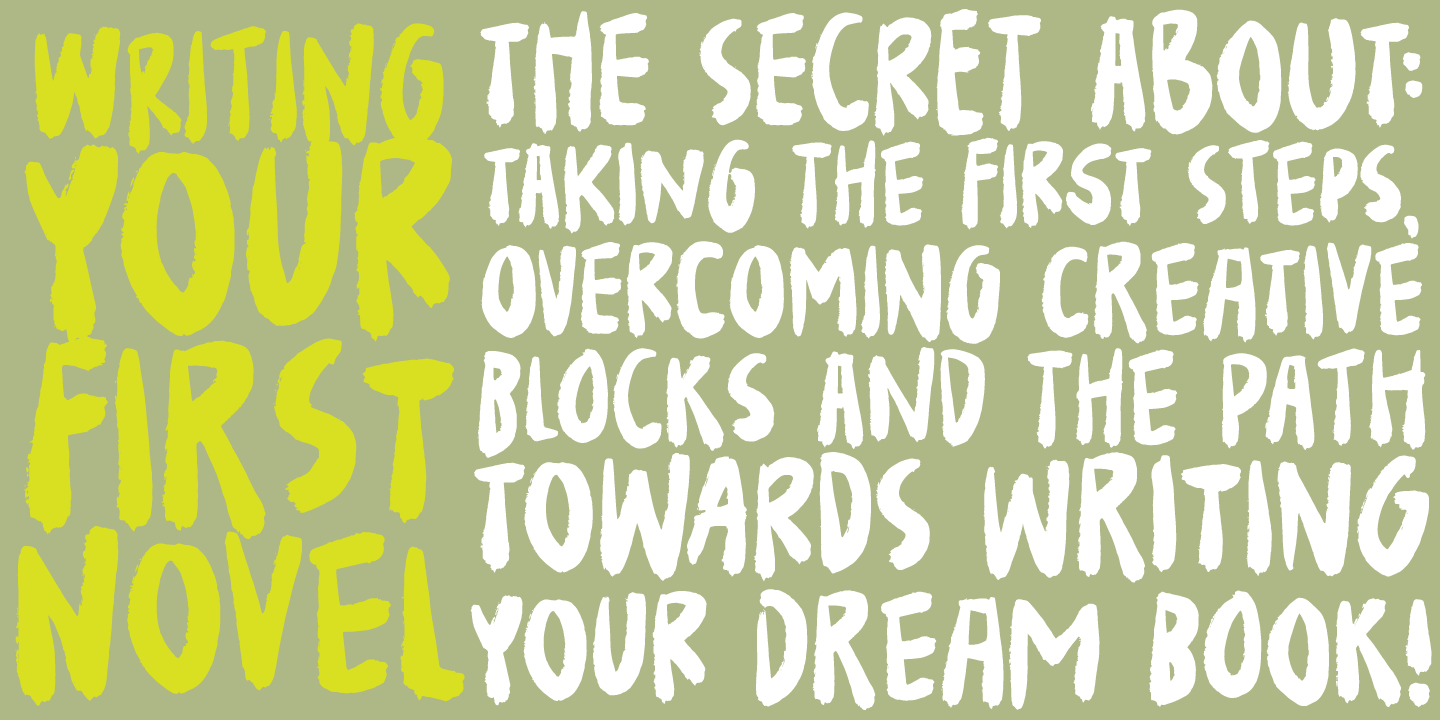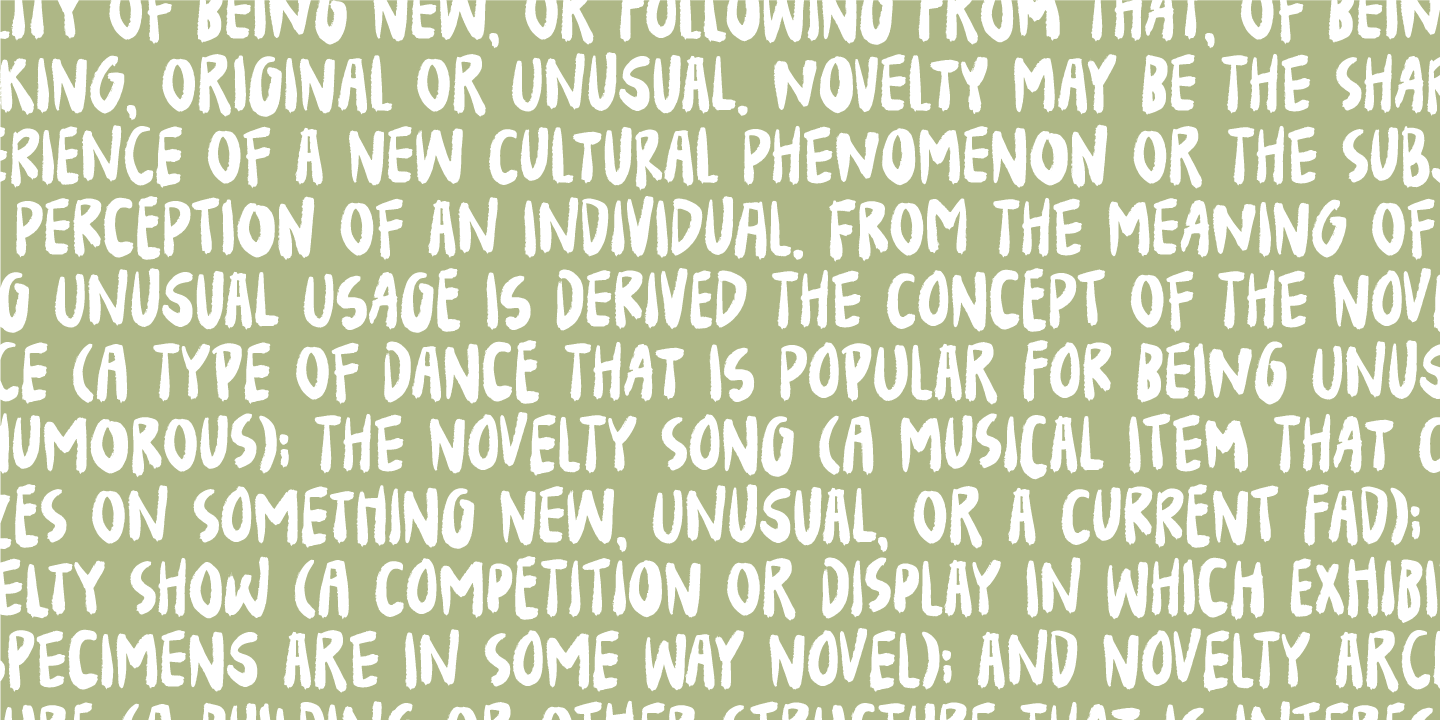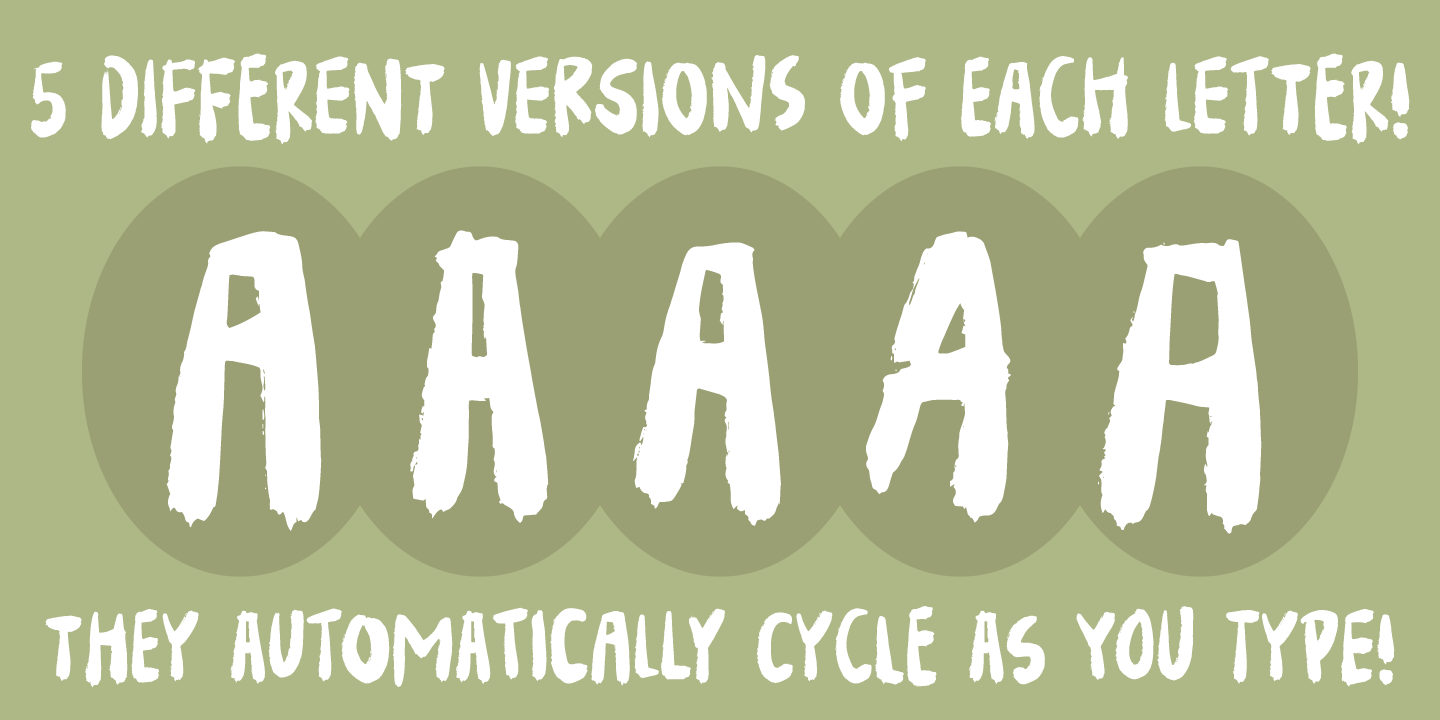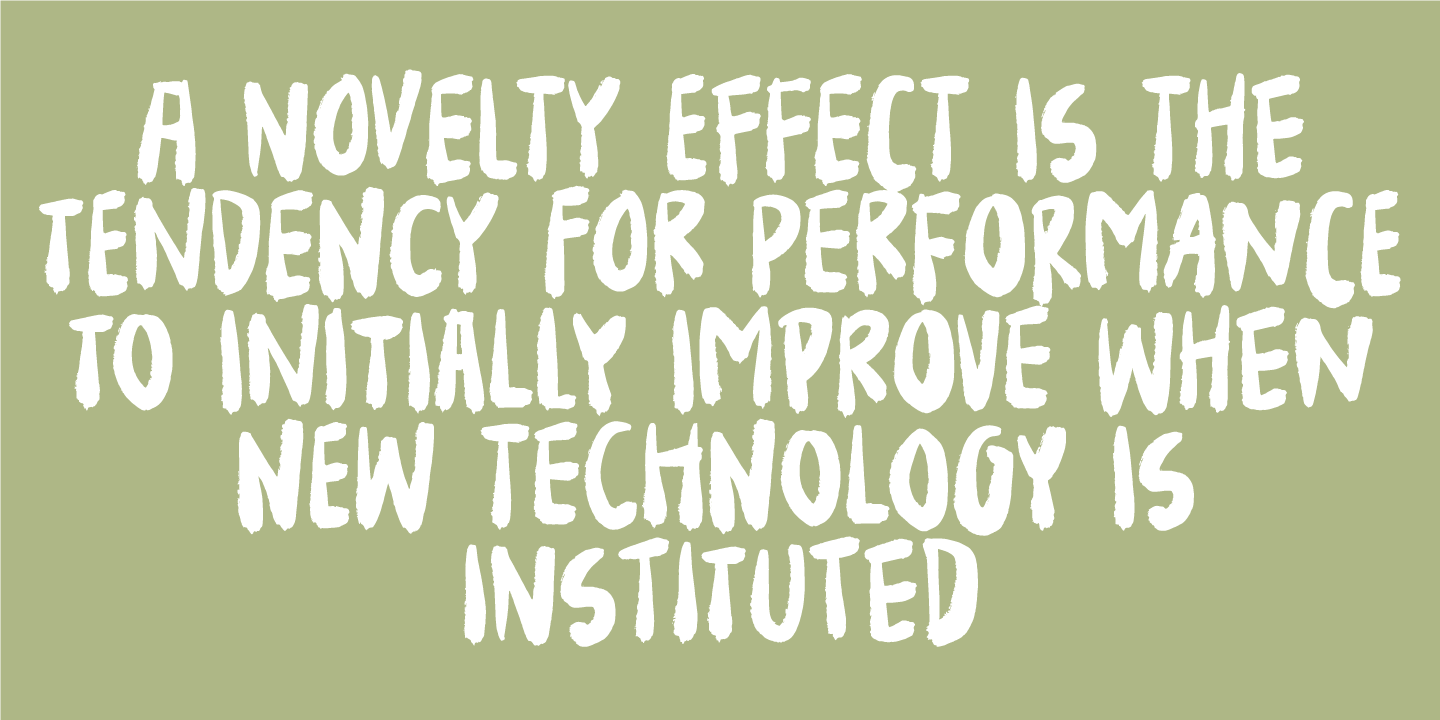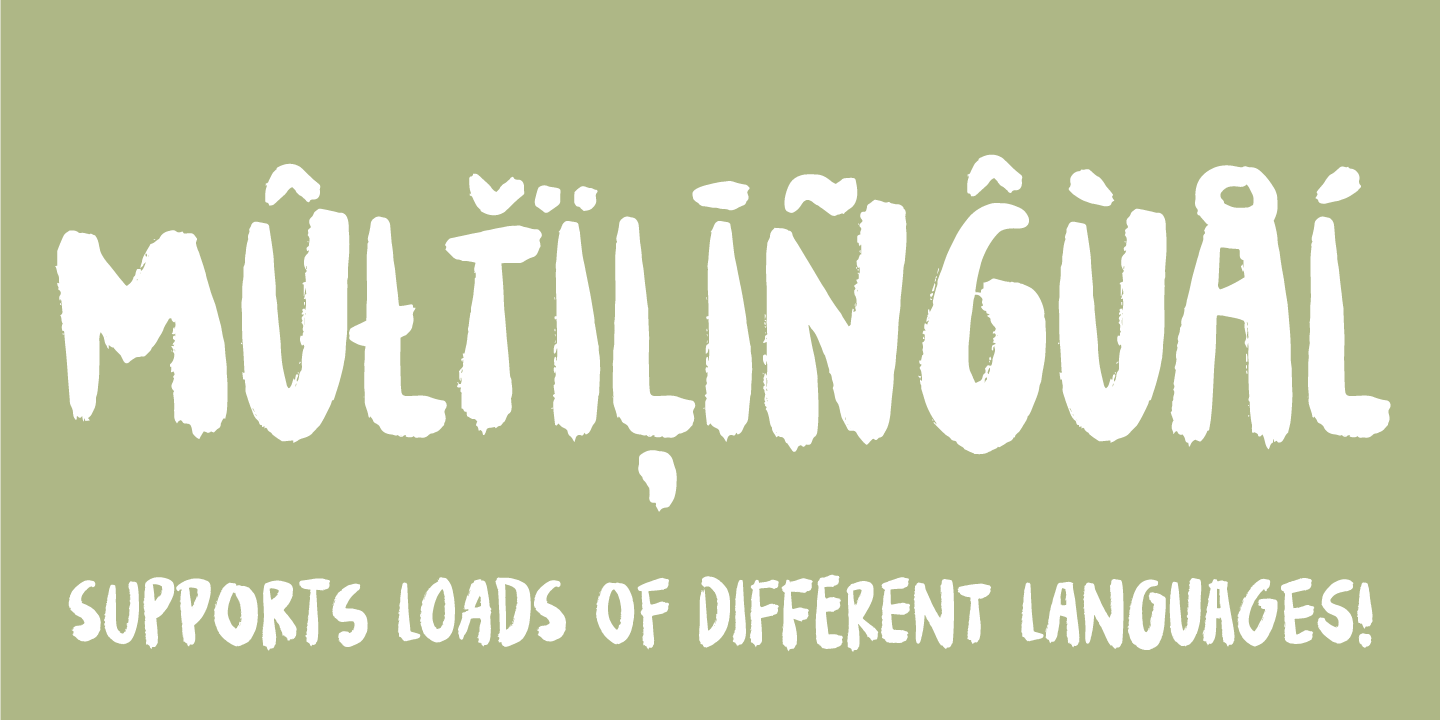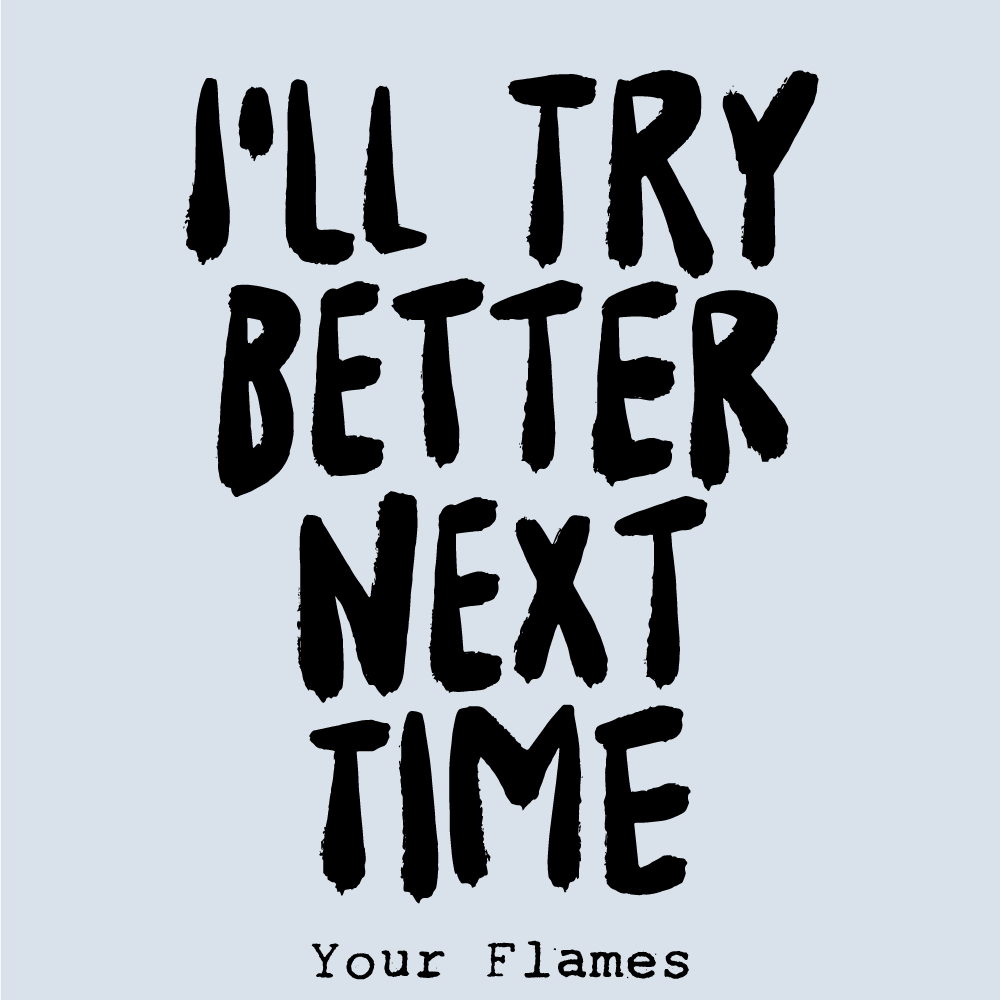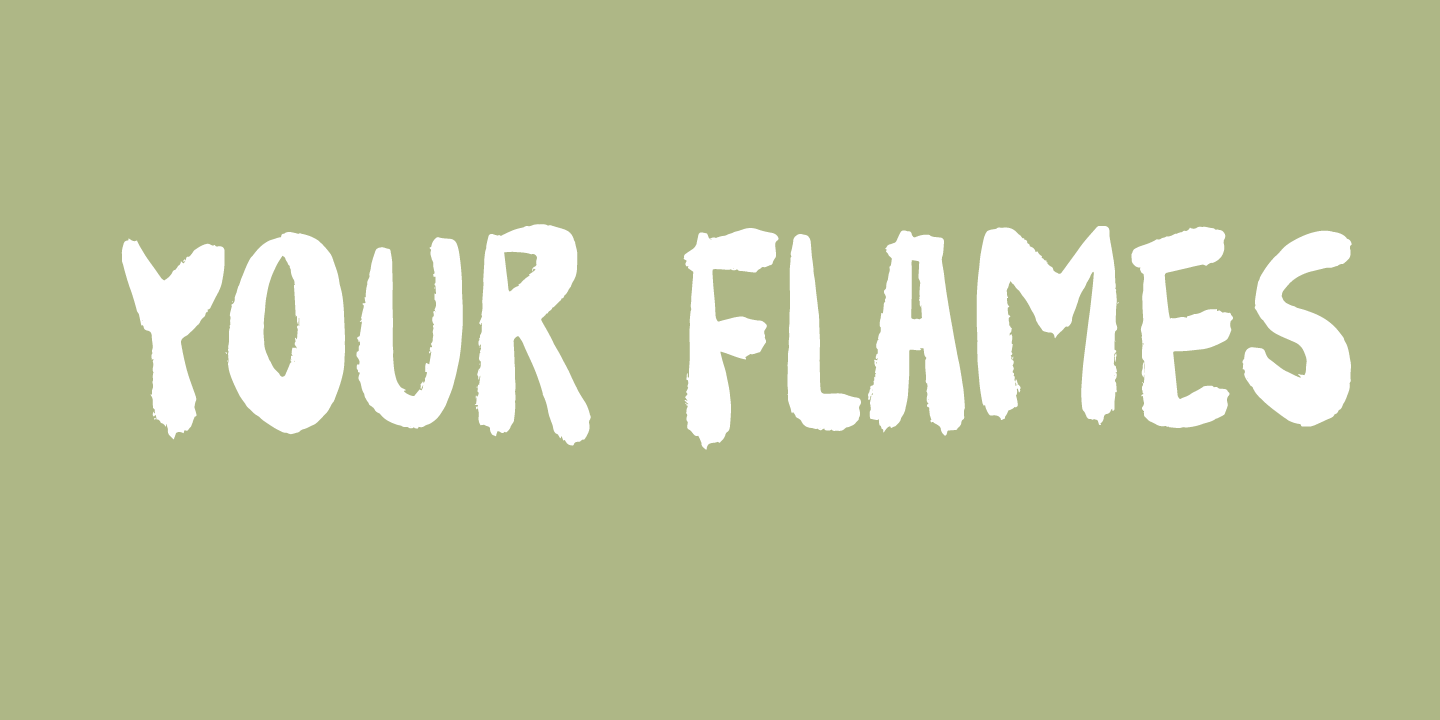
Your Flames
Name comes from a song by The Cure - just as the song, the font is rough!
The font has multilingual support as well as contextual alternates!